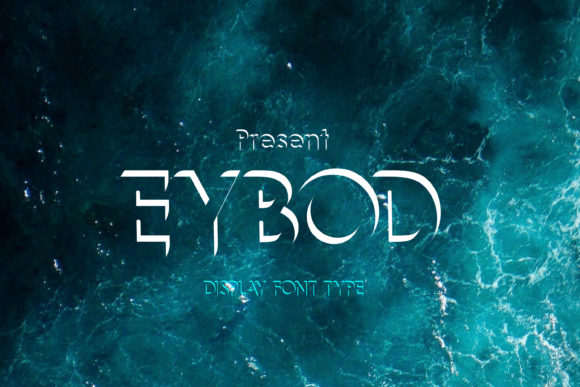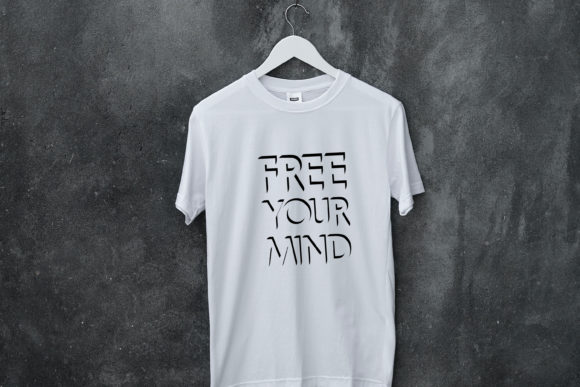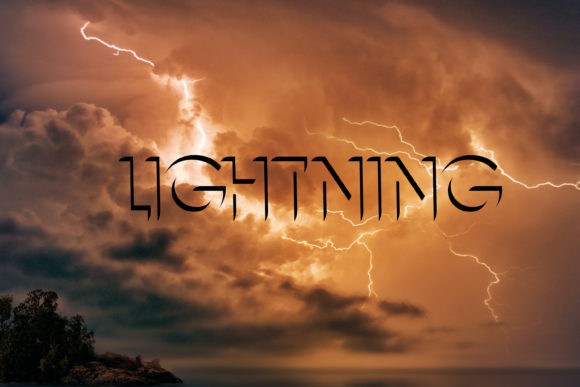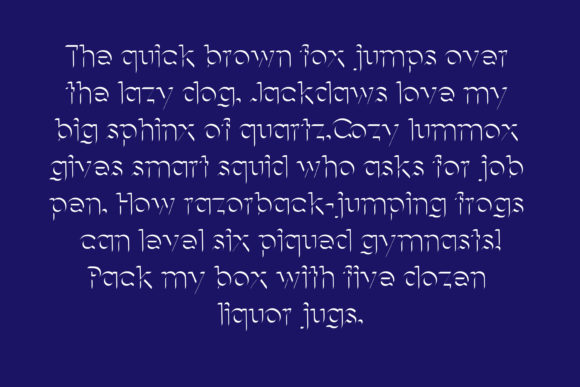
Eybod Font: A Unique Display Font for Modern Logo Design & Branding
About the Eybod Font
Make a bold statement with Eybod Font, a powerful and memorable font. Eybod is a cool, 3D display font that will fit perfectly on each of your designs.
Have fun with this beautiful font and explore its endless variations.
Eybod’s strong three-dimensional forms make it ideal for headlines, logos, and short impactful statements in branding materials or posters. Its bold personality shines in large sizes, commanding attention. However, its highly stylized nature makes it unsuitable for body text or UI elements where readability is paramount; long blocks of Eybod would be difficult to read.
The font’s energetic, almost playful quality pairs well with clean sans-serif fonts like Open Sans for body copy, creating a balanced contrast. For a more sophisticated look, consider pairing it with a classic serif such as Garamond, letting Eybod’s boldness provide a striking counterpoint to the serif’s elegance. Avoid pairing it with other highly decorative fonts, which would create visual clutter.
Eybod projects a modern, bold, and slightly playful personality. It’s a great choice for brands targeting a younger demographic or those seeking to convey a sense of energy and innovation. Consider its use for projects related to technology, entertainment, or lifestyle brands with a dynamic image.